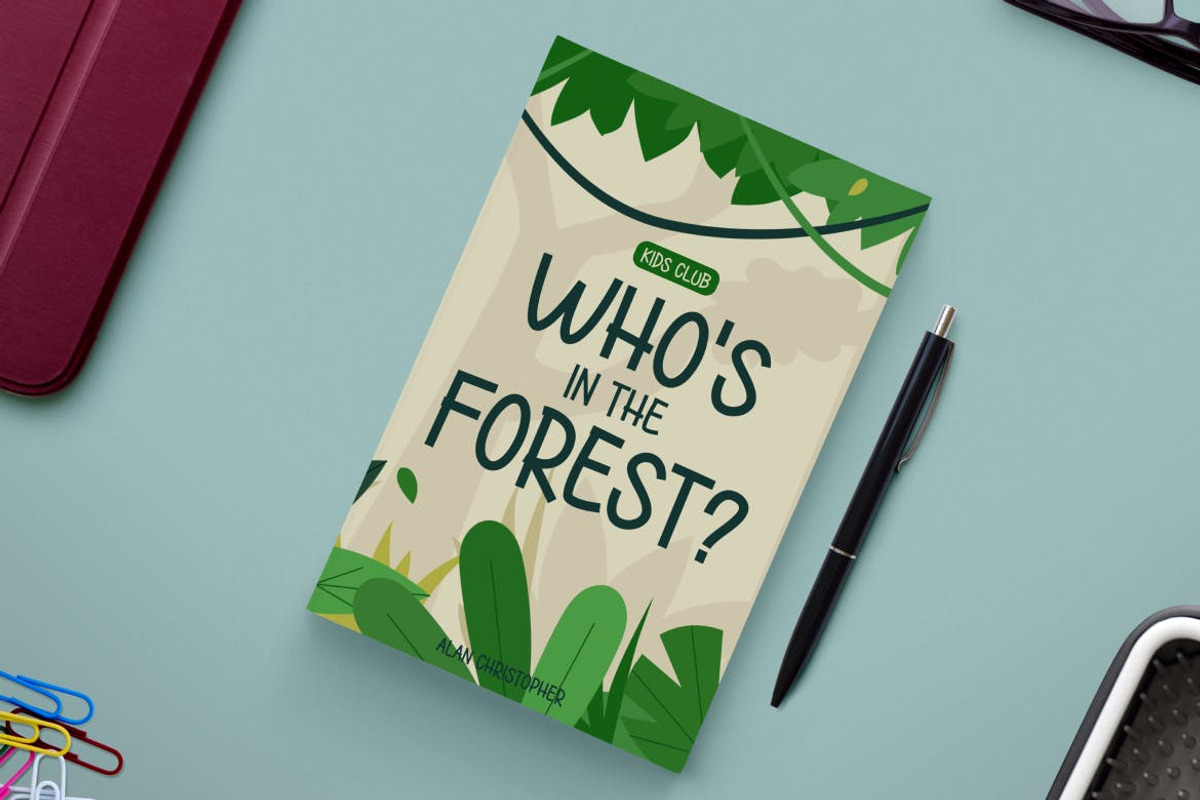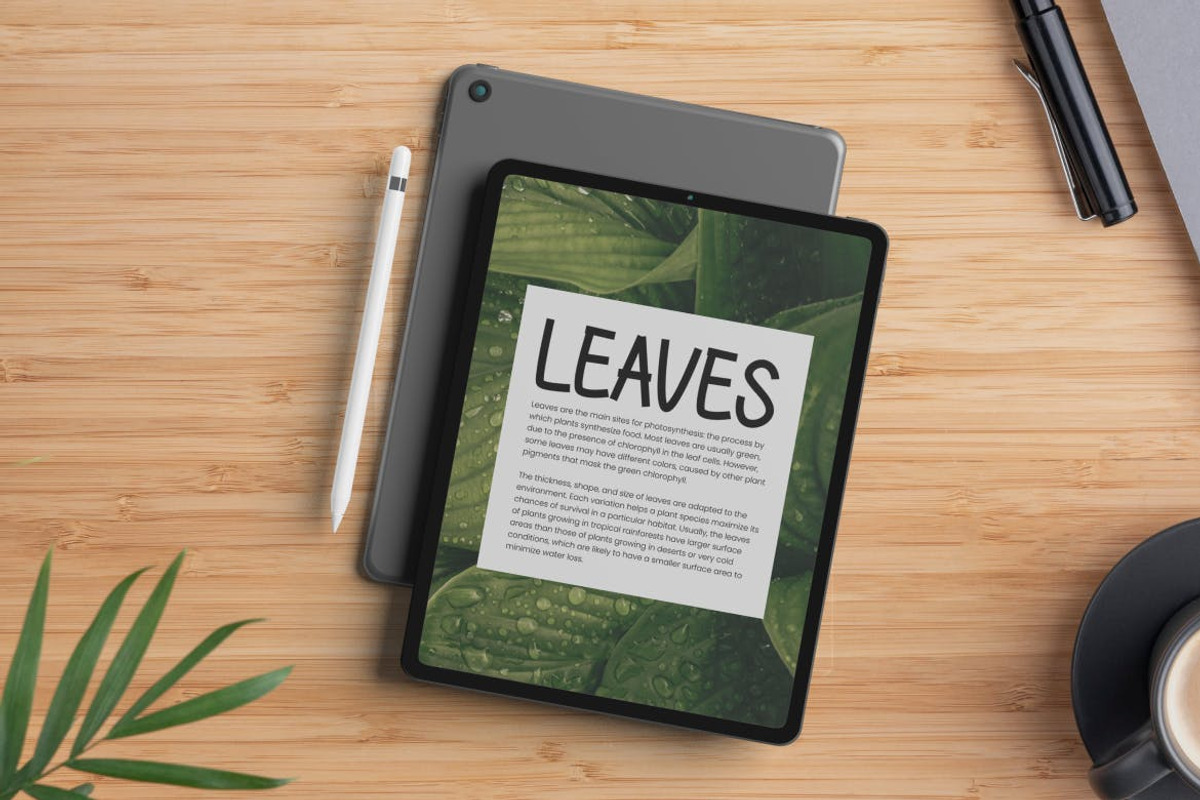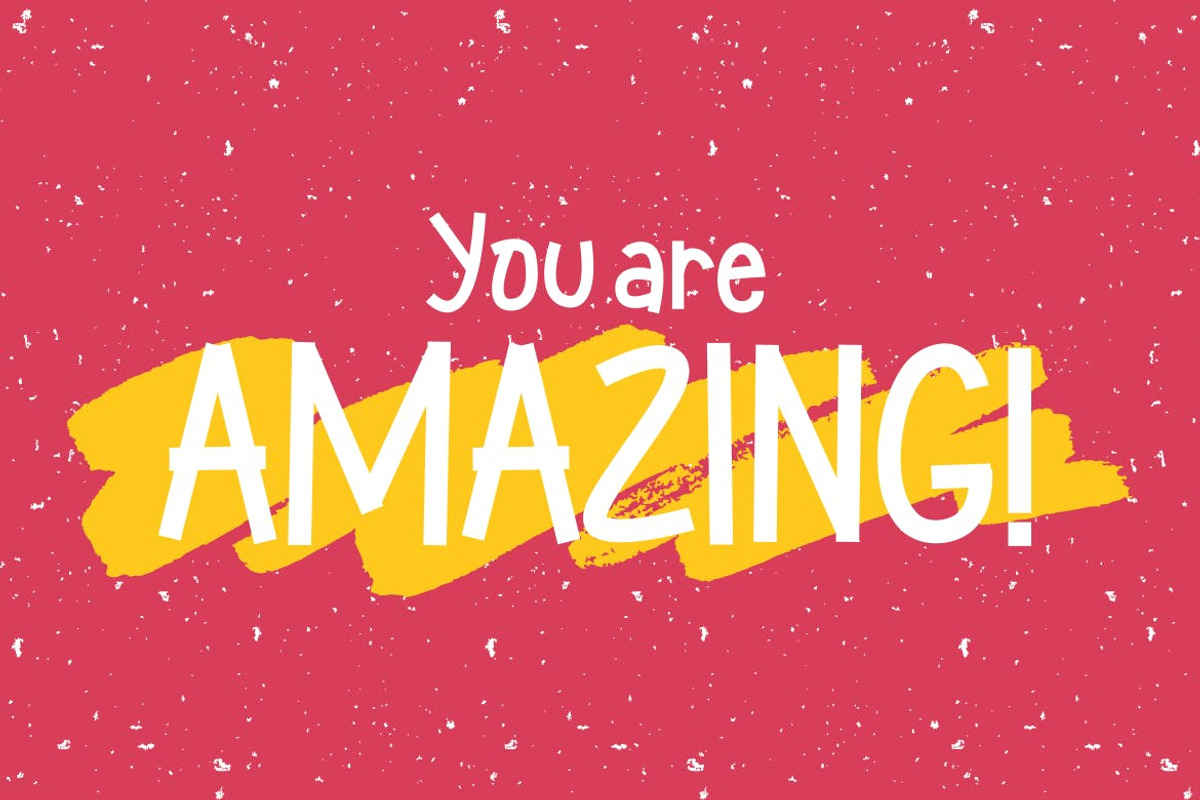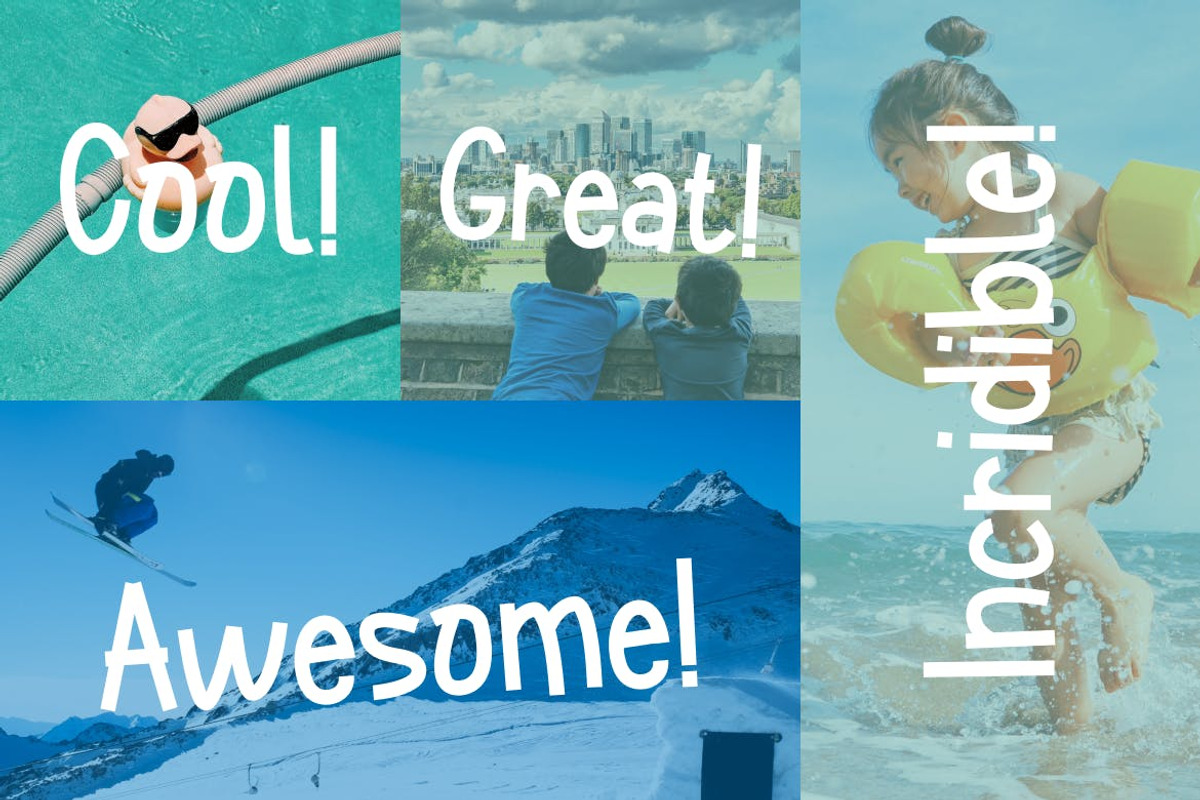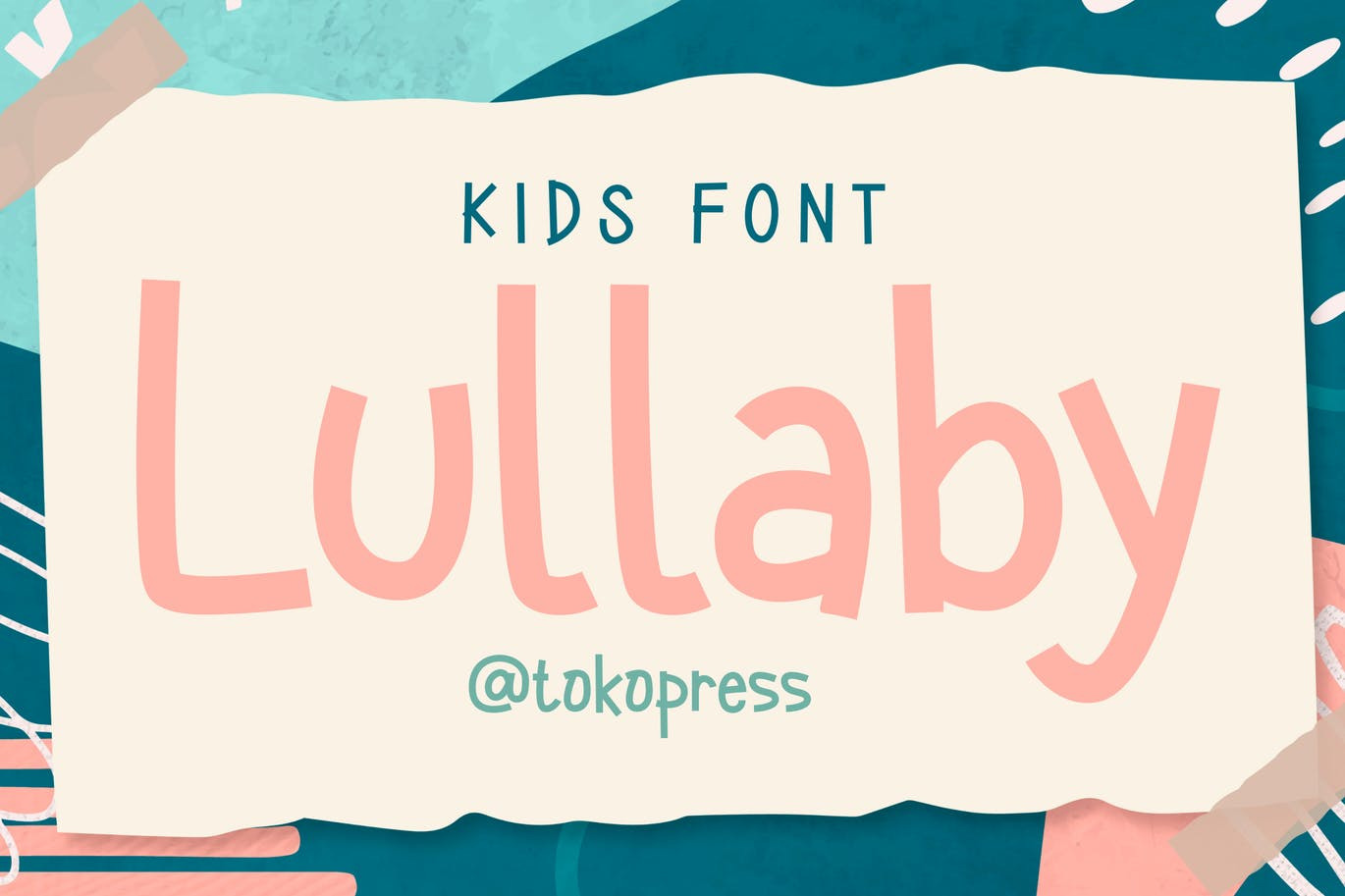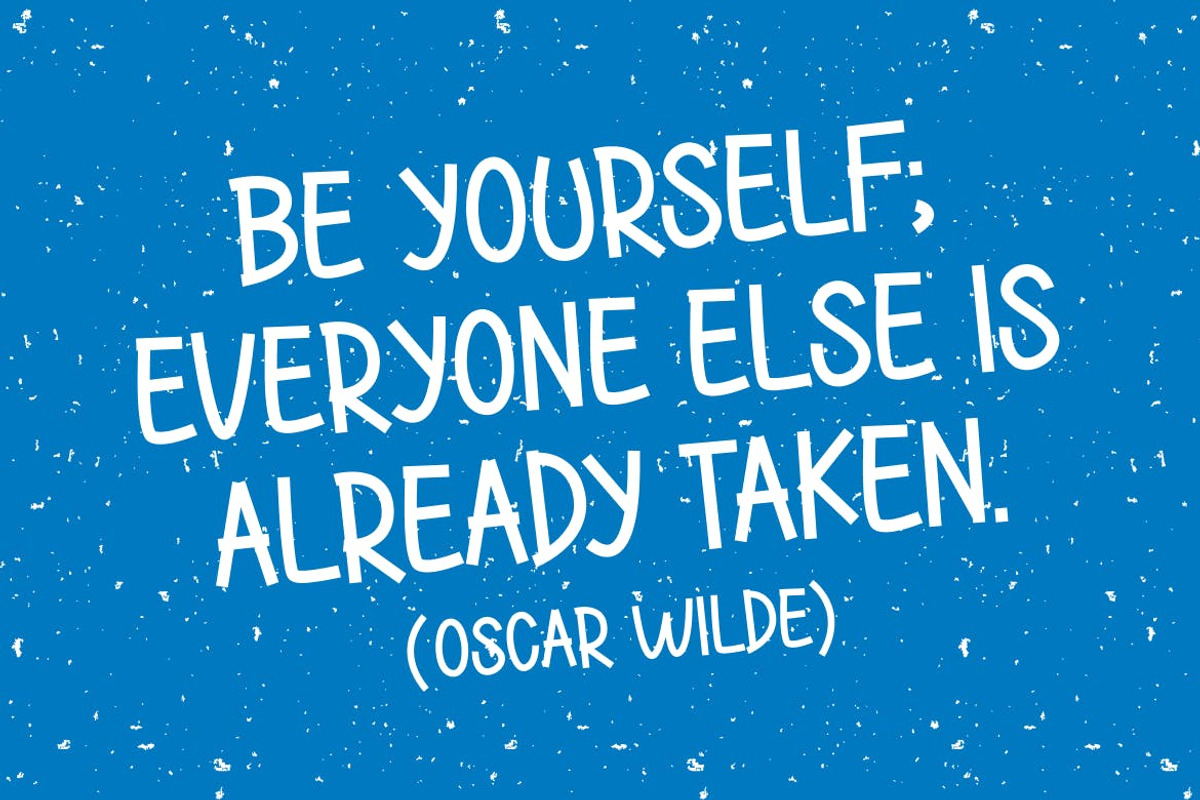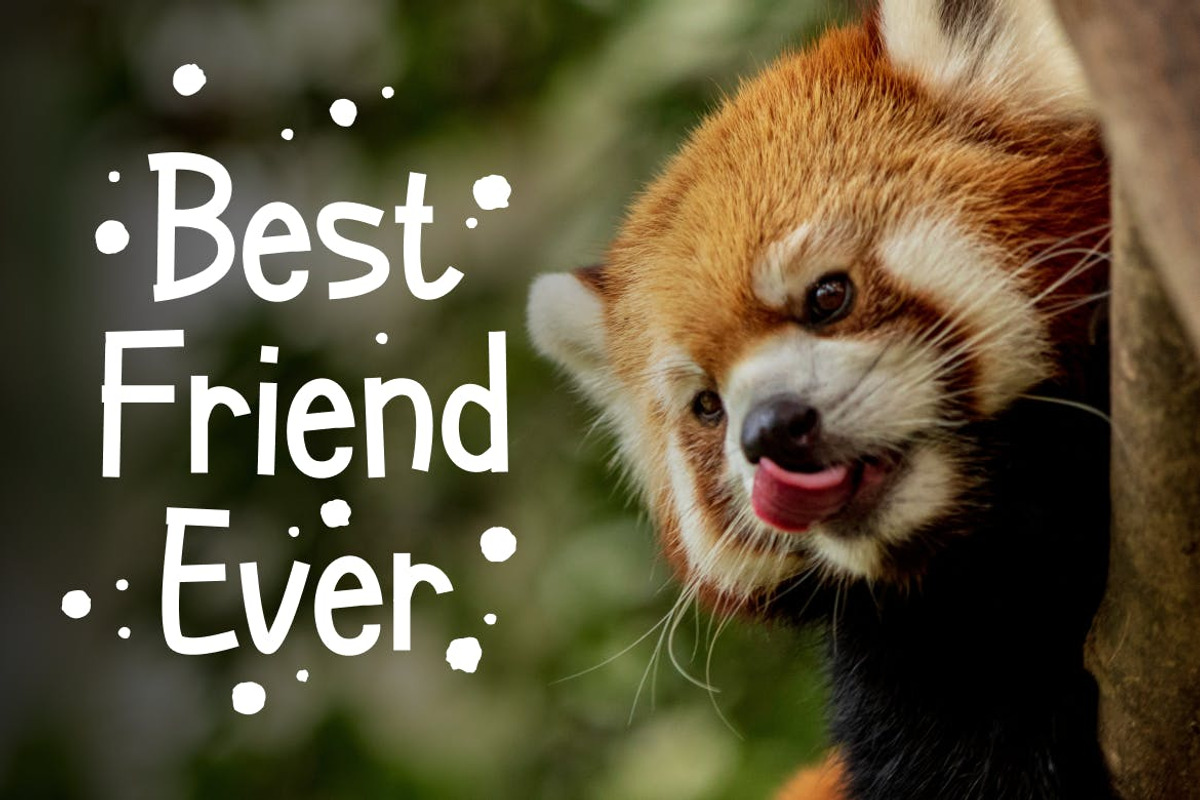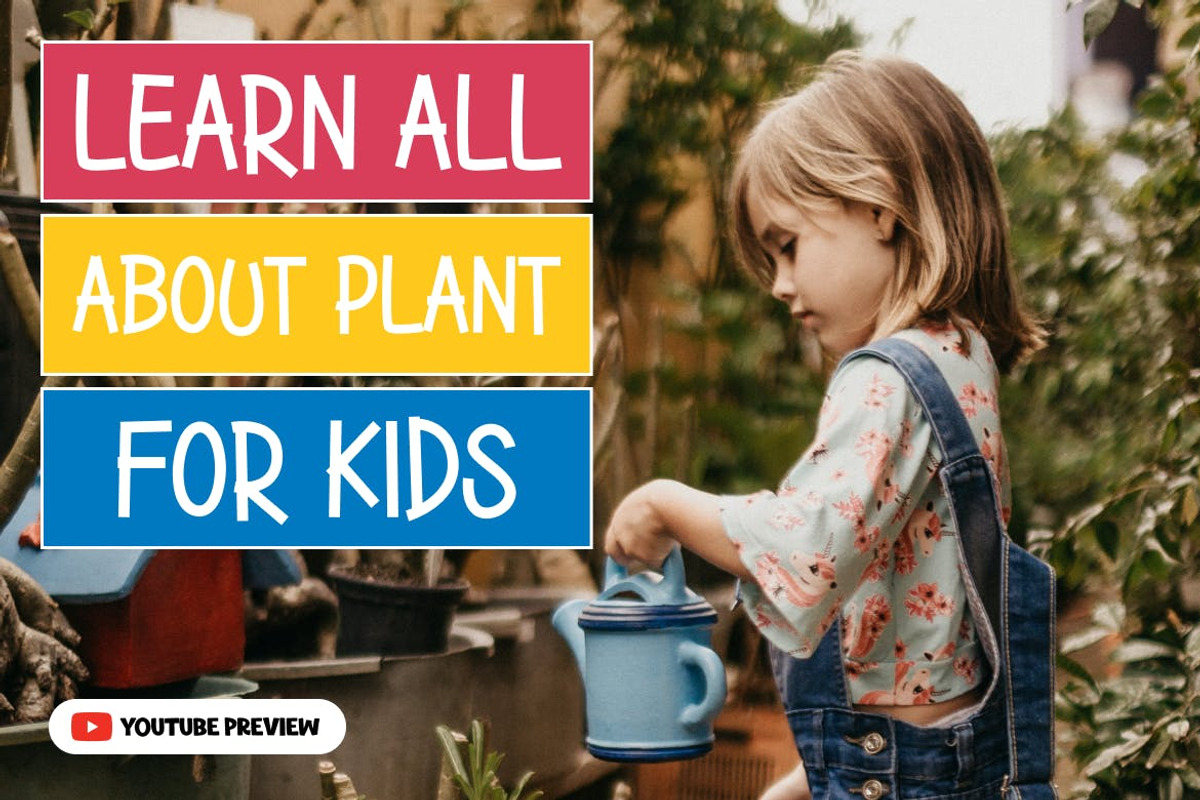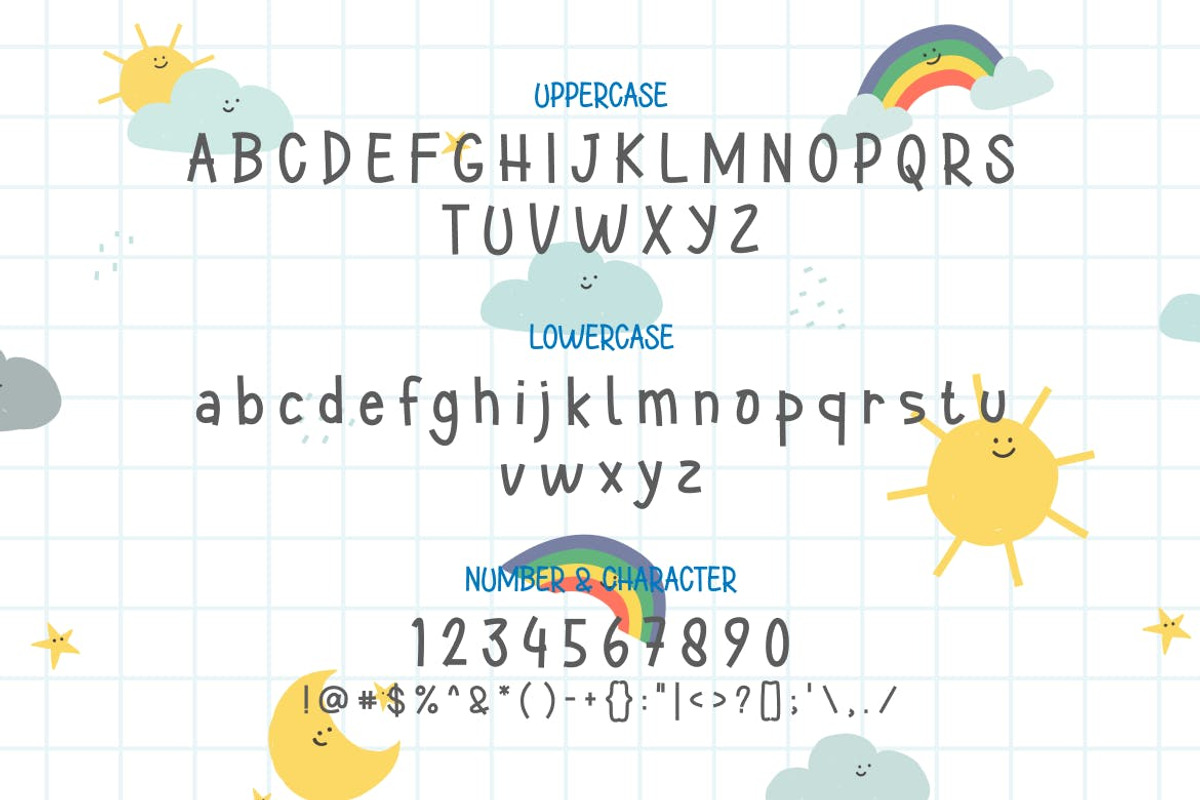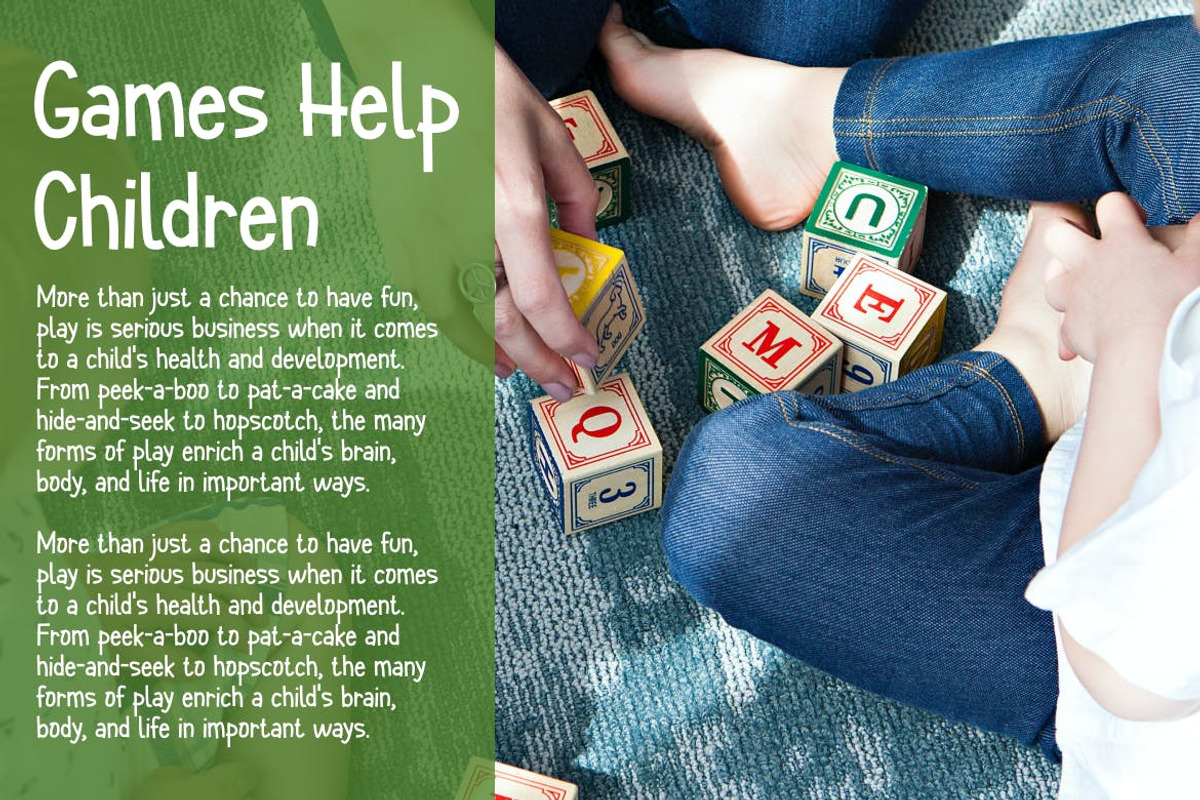
Lullaby - Kids font
Lullaby – Kids font
Happiness and joy are what children world. And Lullaby is all about that. It brings a smile all over the place.
Suit perfectly for kids books market, online games, stationary, school supplies font, poster, movie title, youtube covers, youtube thumbnails, social media page covers and so on…